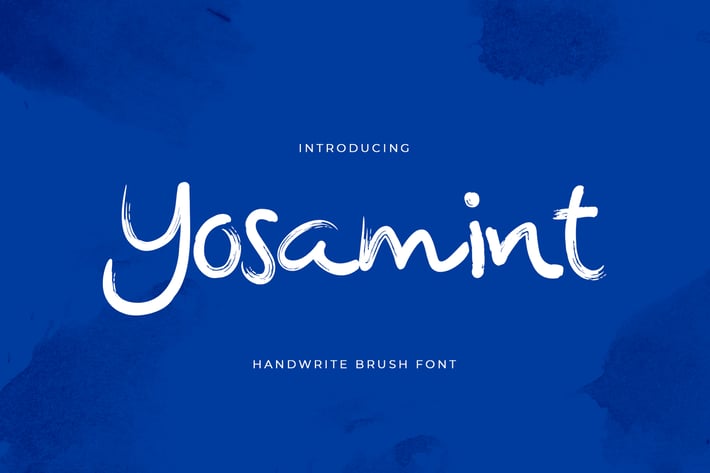
Yosamint Handwritten Brush Font
Yosamint is Handwritten Brush Font that made using the real brush pen. It looks very natural. This font is great for apparel, branding, logo, magazine, quotes, packaging, advertising, and more